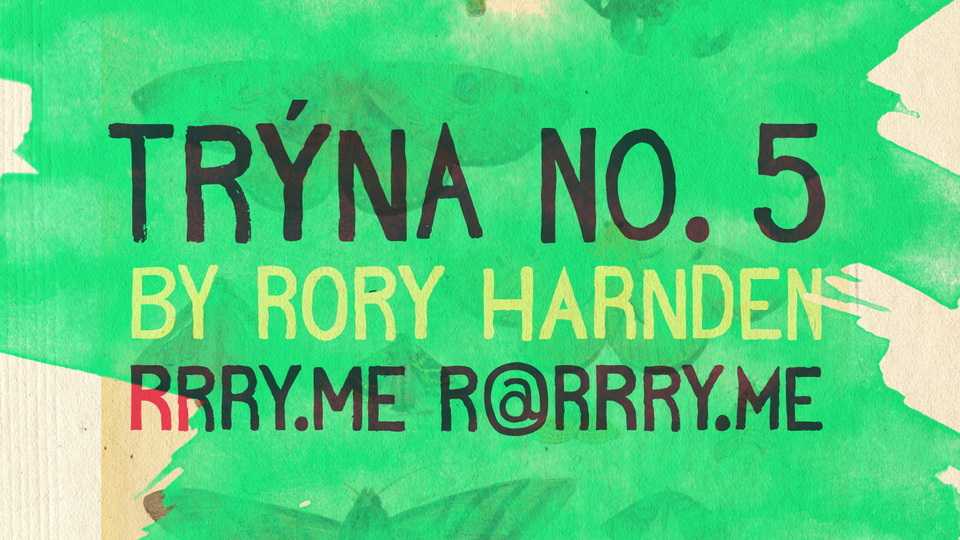
Download Trýna No. 5 font, a rough, hand-crafted typeface with four variations of each glyph for a bristly, gorse-like feel. Trýna No. 5 font is based on some hand-daubed writing in a homemade Icelandic museum.
Designer: Rory Harnden